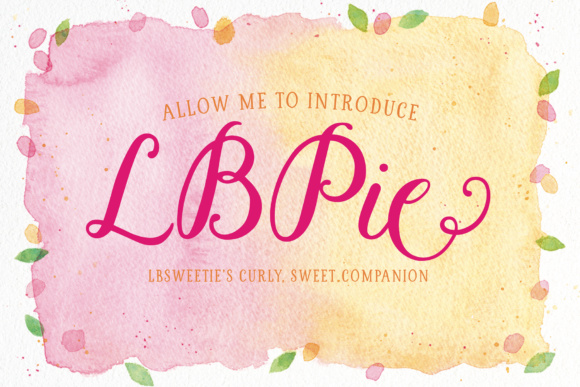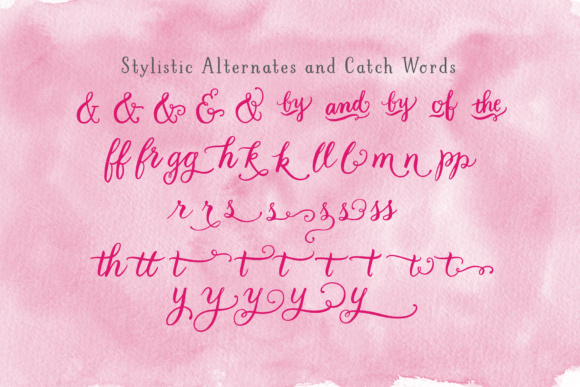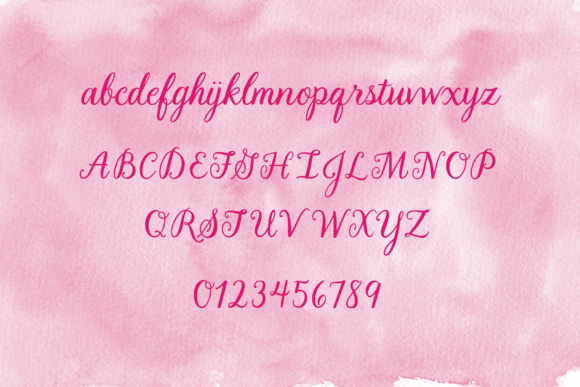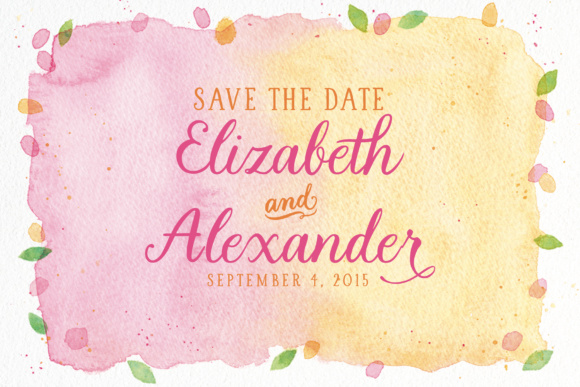
HomeScript FontsLBPie Font Script Fonts LBPie Font FacebookXPinterestWhatsApp LBPie Font Poster 2 LBPie Font Poster 3 LBPie Font Poster 4 About LBPie Font LBPie is a hand-lettered, calligraphic, connected script with a sweet and curly personality. DOWNLOAD ON CREATIVE FABRICAThis font is sold and delivered by Creative Fabrica. Font Canyon may earn a commission if you buy through this link. People also explored Auster Rounded Summer Vibes Font Rotherham Boldilicious Watermellon Font Enagol Math Rounded -4 fonts- Font Autumn Font First Games Font Merisk Font 360 0 TagsLBPie Font Previous articleAnne with an E FontNext article Nidalis Font LEAVE A REPLY Cancel reply Comment: Please enter your comment! Name:* Please enter your name here Email:* You have entered an incorrect email address! Please enter your email address here Website: Save my name, email, and website in this browser for the next time I comment. Personal Use Free Rookie Mastering Personal Use Free Read more about this font Engine Personal Use Free Read more about this font Rollayka Personal Use Free Read more about this font Pridaem Cooper Personal Use Free Read more about this font BLOG Free Fonts Risk: Why Free Fonts Can Be Dangerous for Designers Free Fonts Risk: Why Free Fonts Can Be Dangerous for Designers Using free fonts is a common practice in web and graphic design. However, the... Elegant Wedding Invitation Fonts – Handwritten & Script Fonts Top 10 Handwritten Fonts That Elevate Your Designs Top 7 Google Fonts Alternatives for Faster and Privacy-Friendly Web Design (2025)